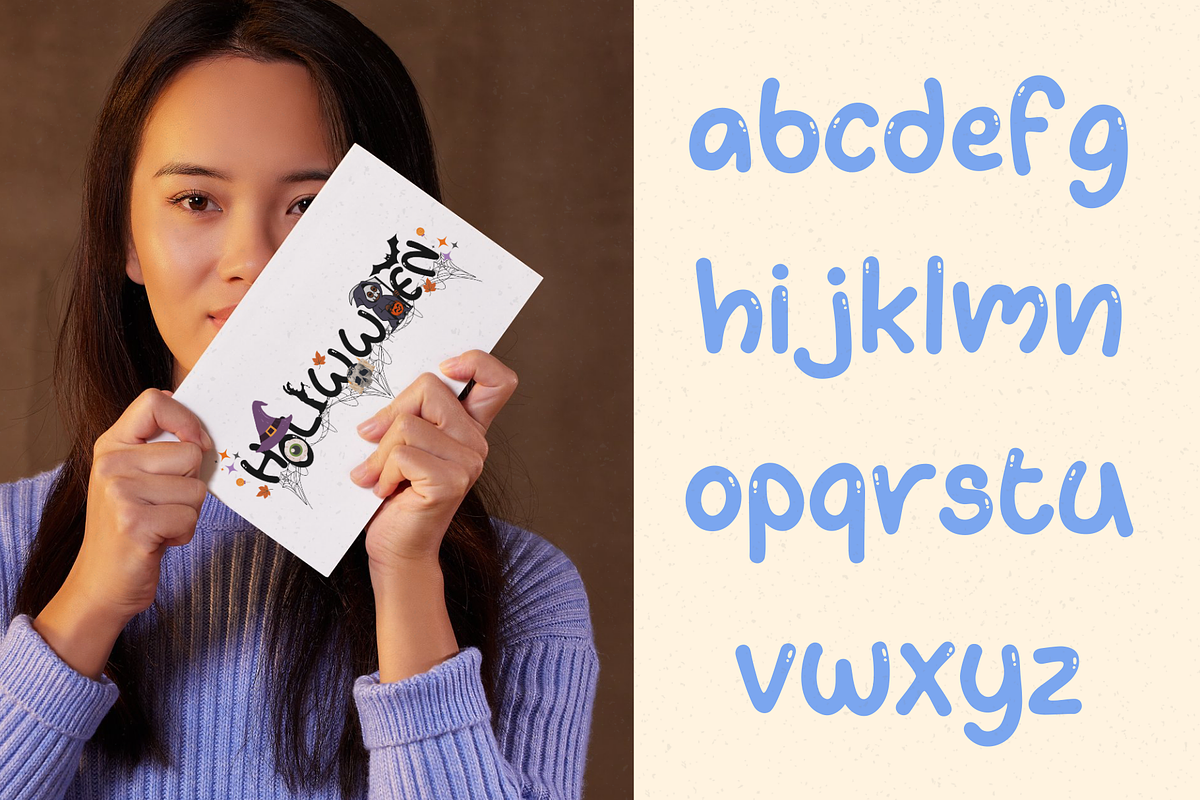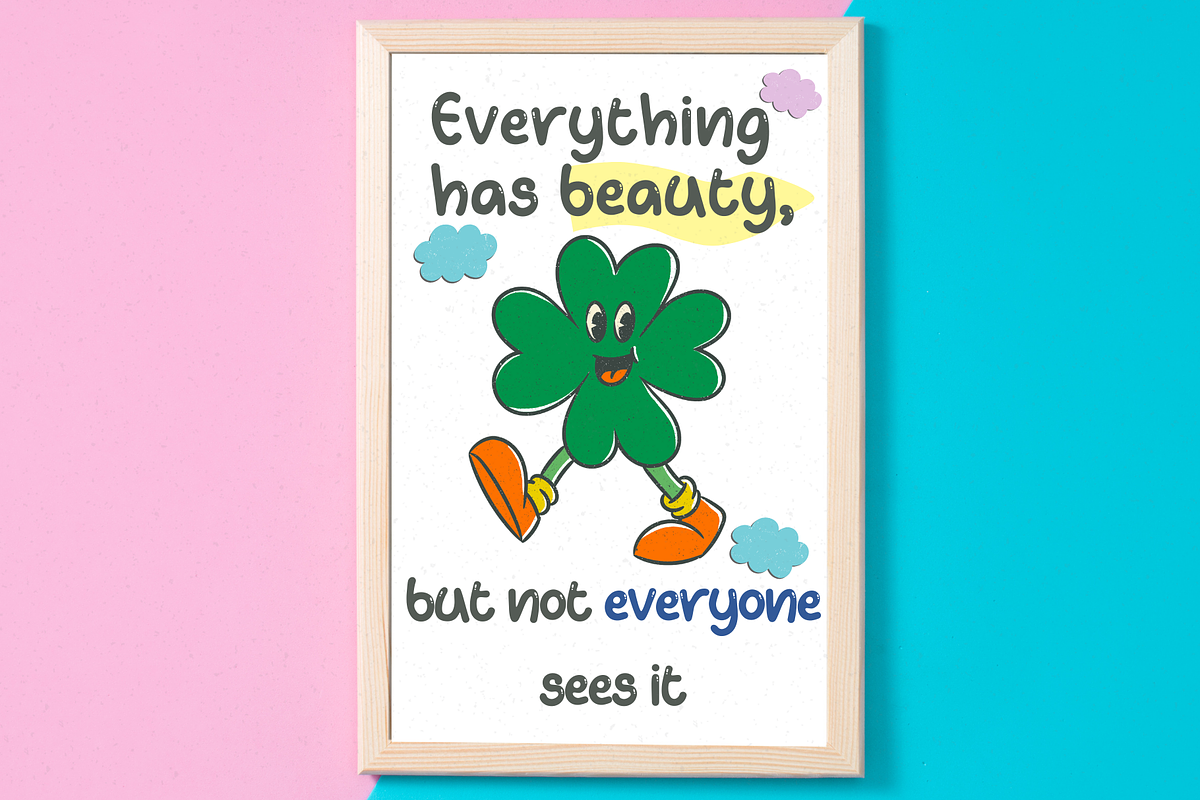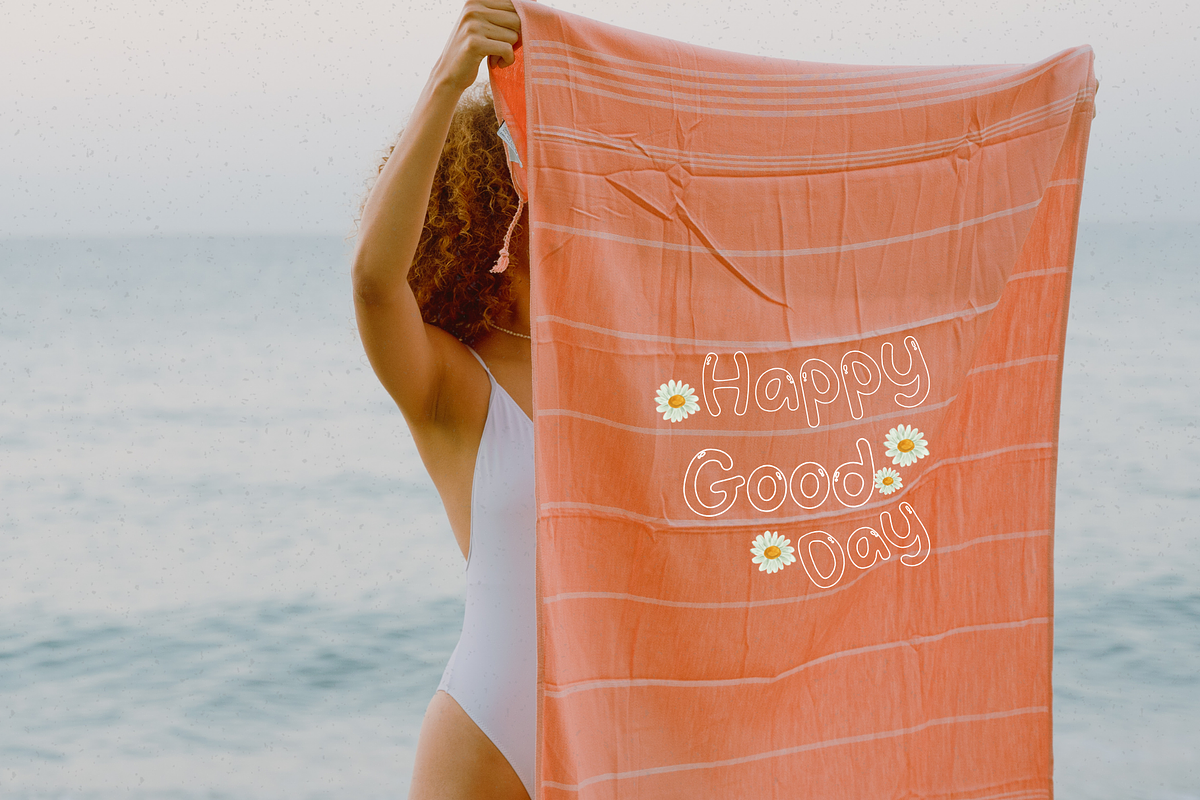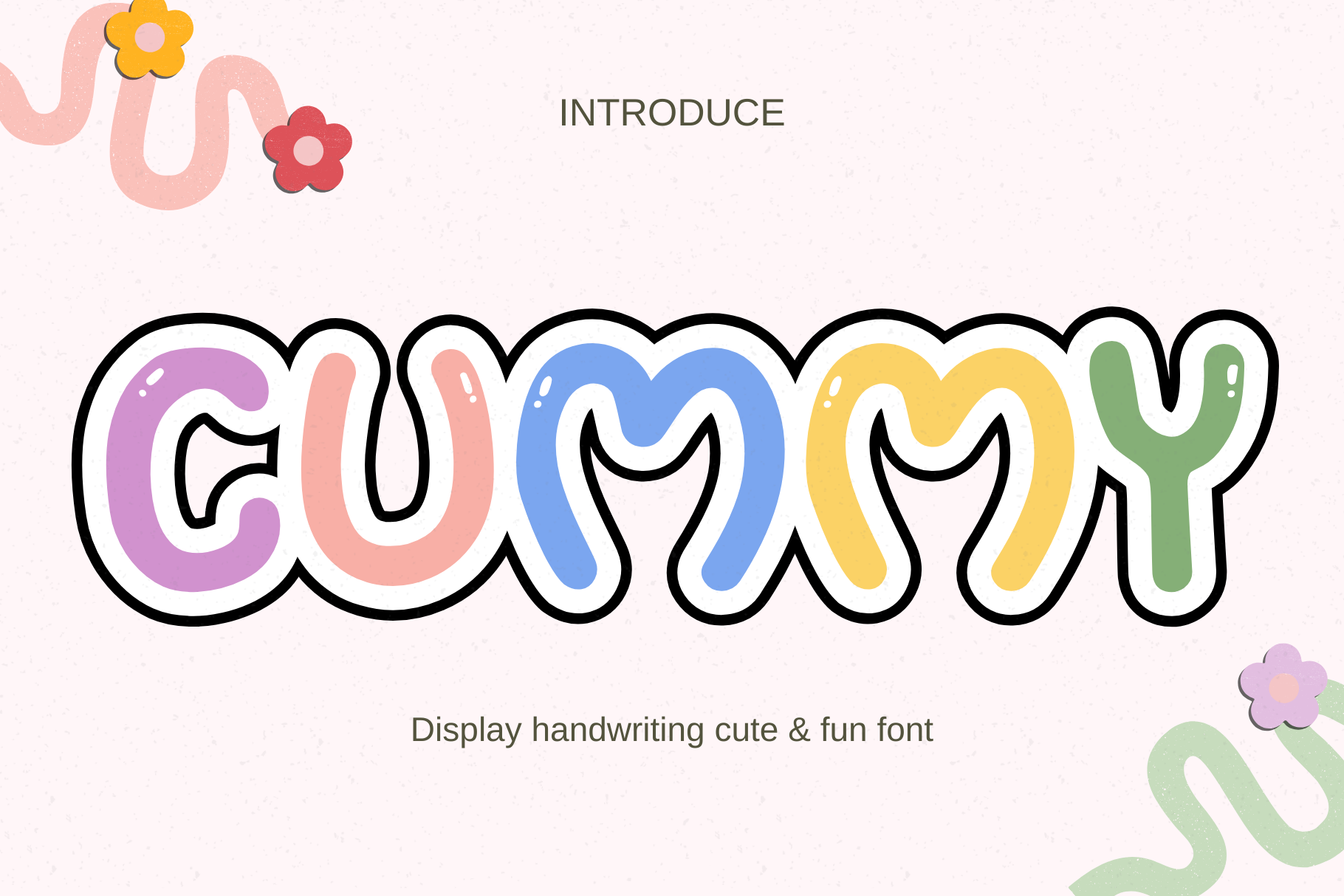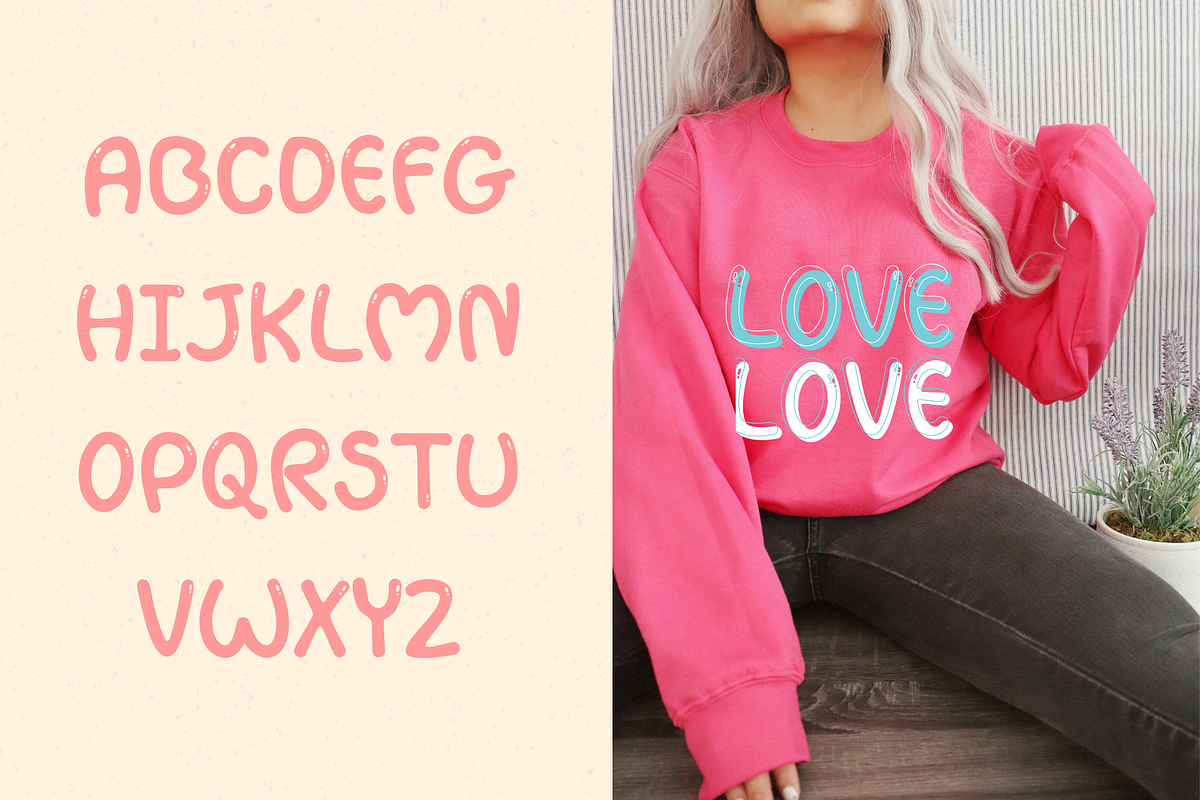
Cummy handwriting font
A decorative font that comes with a dose of cuteness, inviting special and intriguing feelings. The small, subtle details in the letters add a touch of charm to your design work, making it unique and stylish. You can use this font for a variety of design projects, from bags and clothing to stickers, hats, notes, drawing apps, and more, enhancing the fun and creativity in your design process.